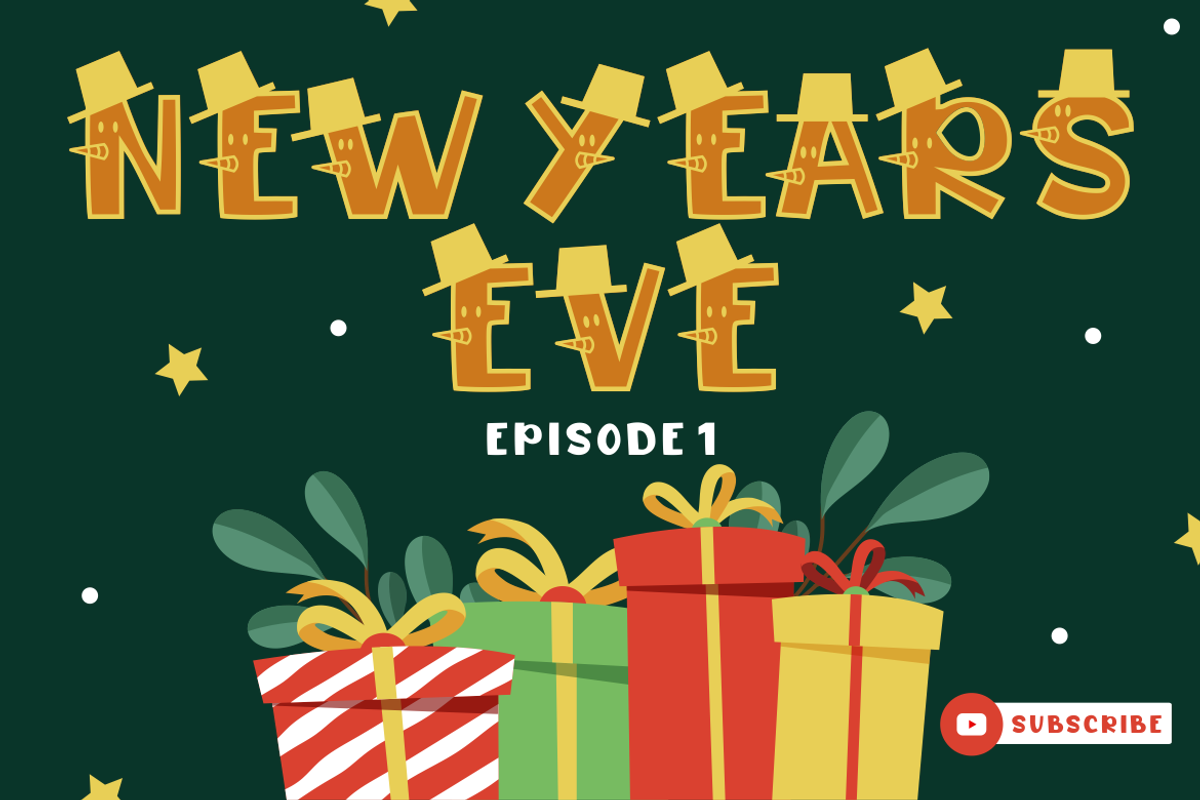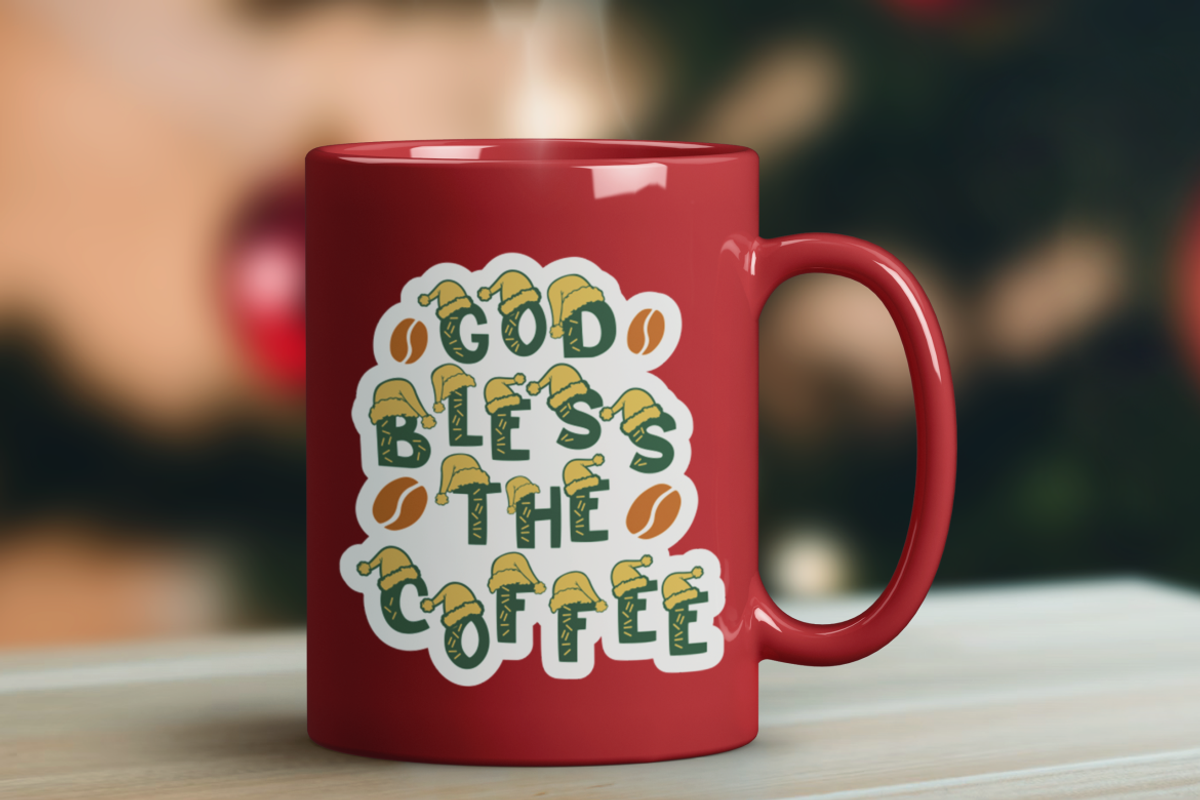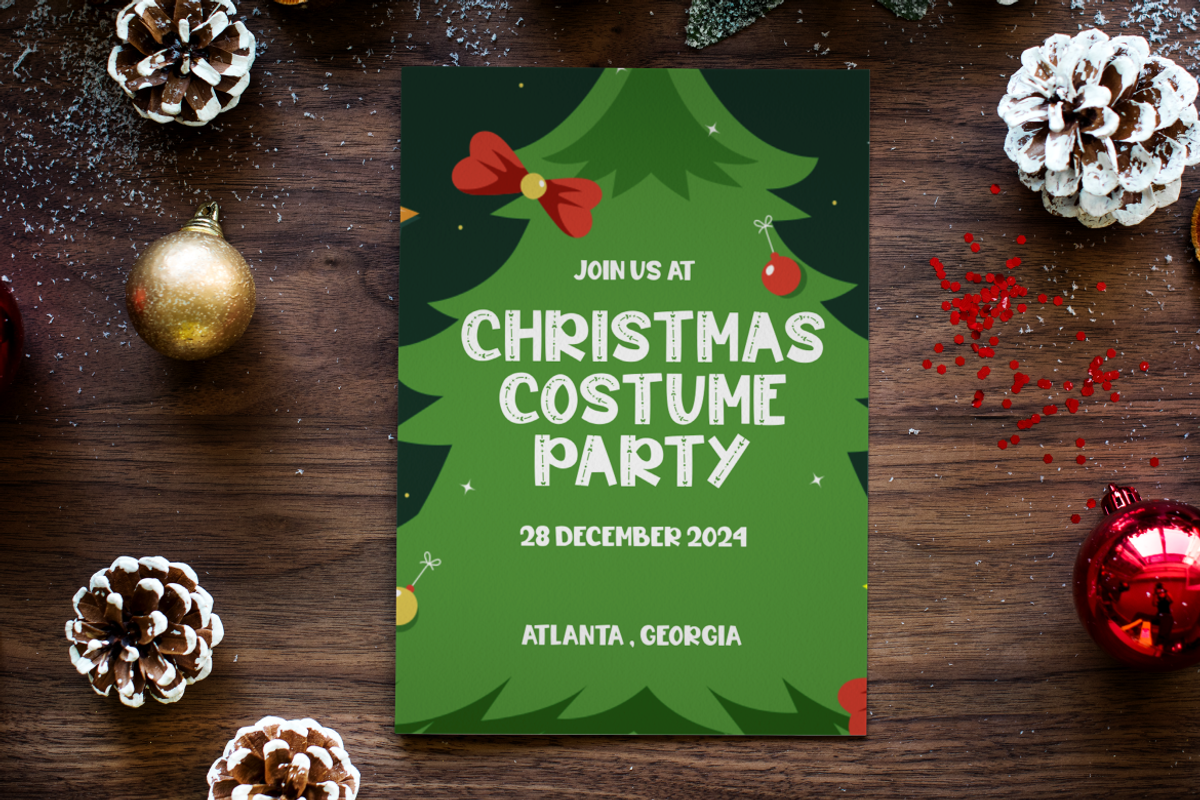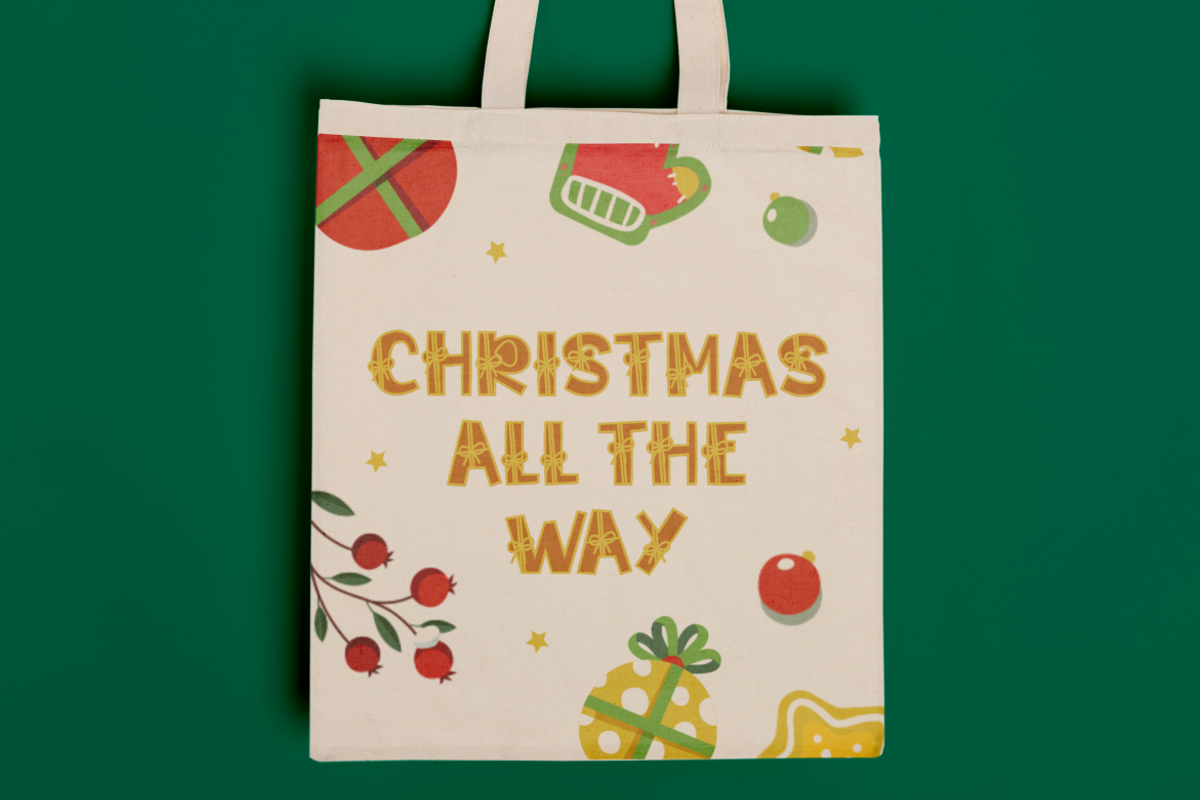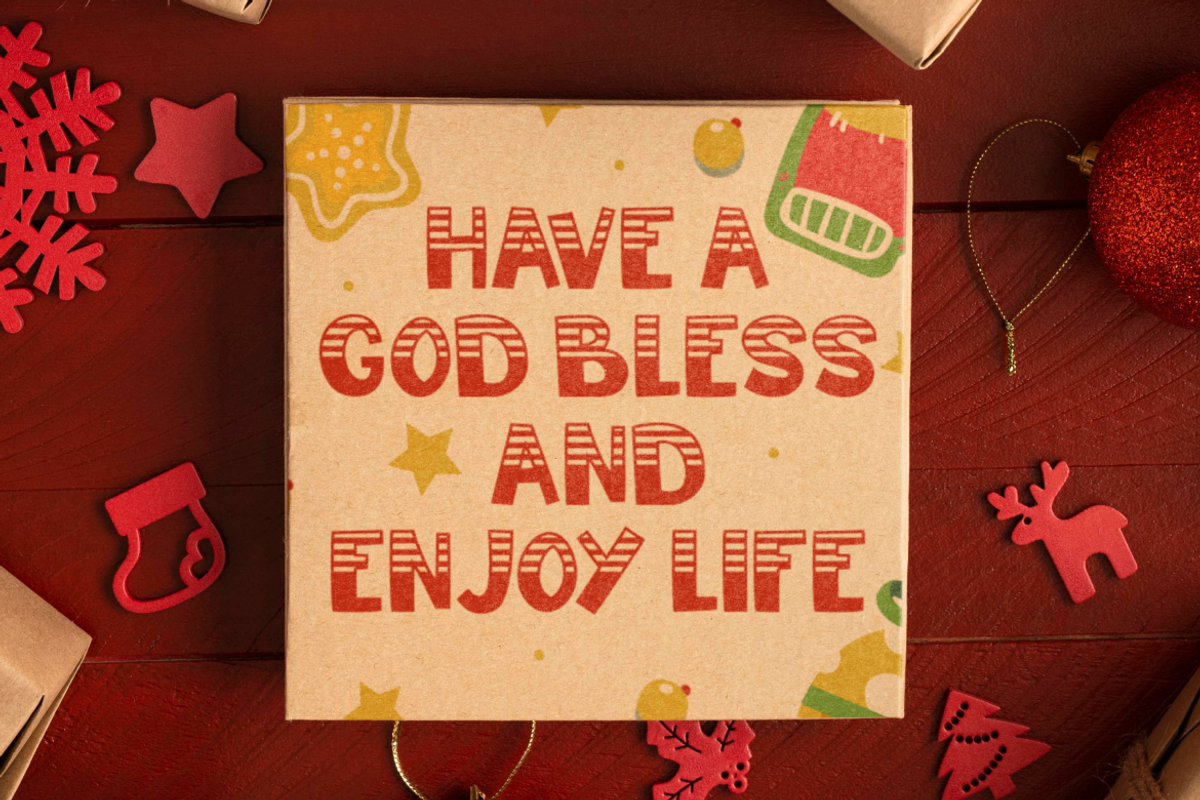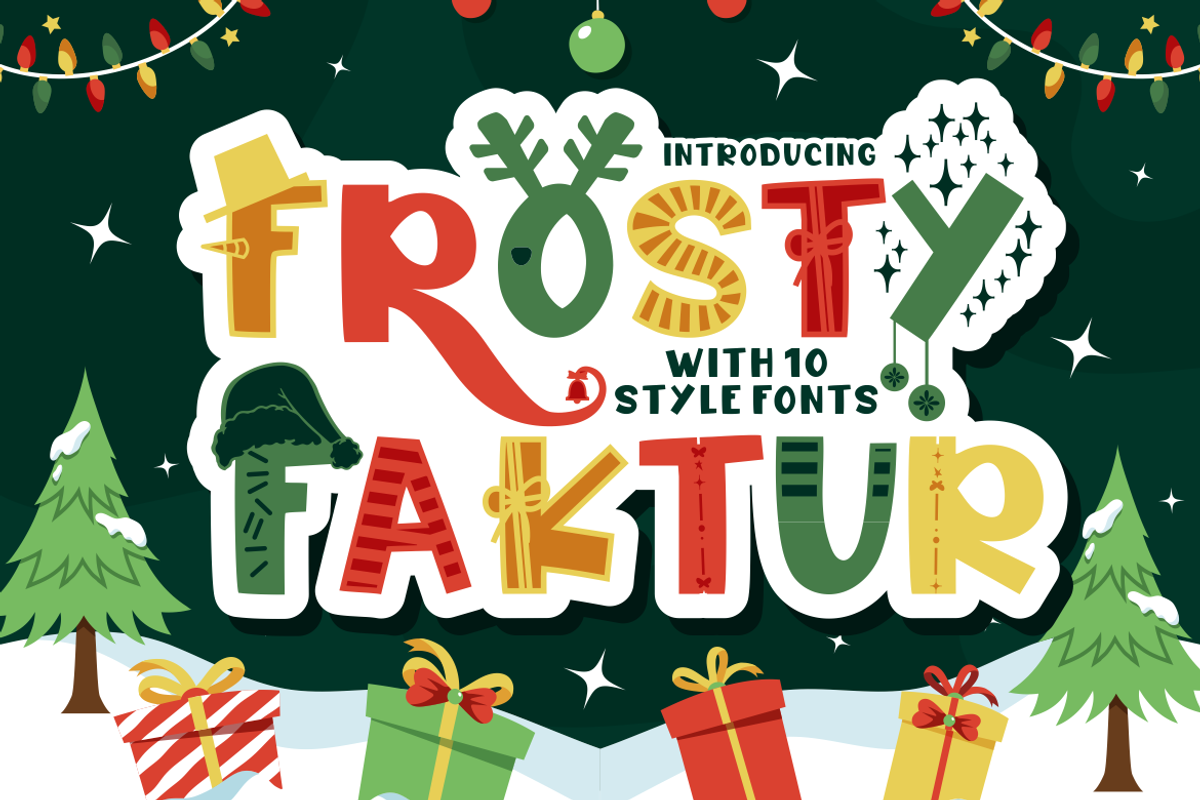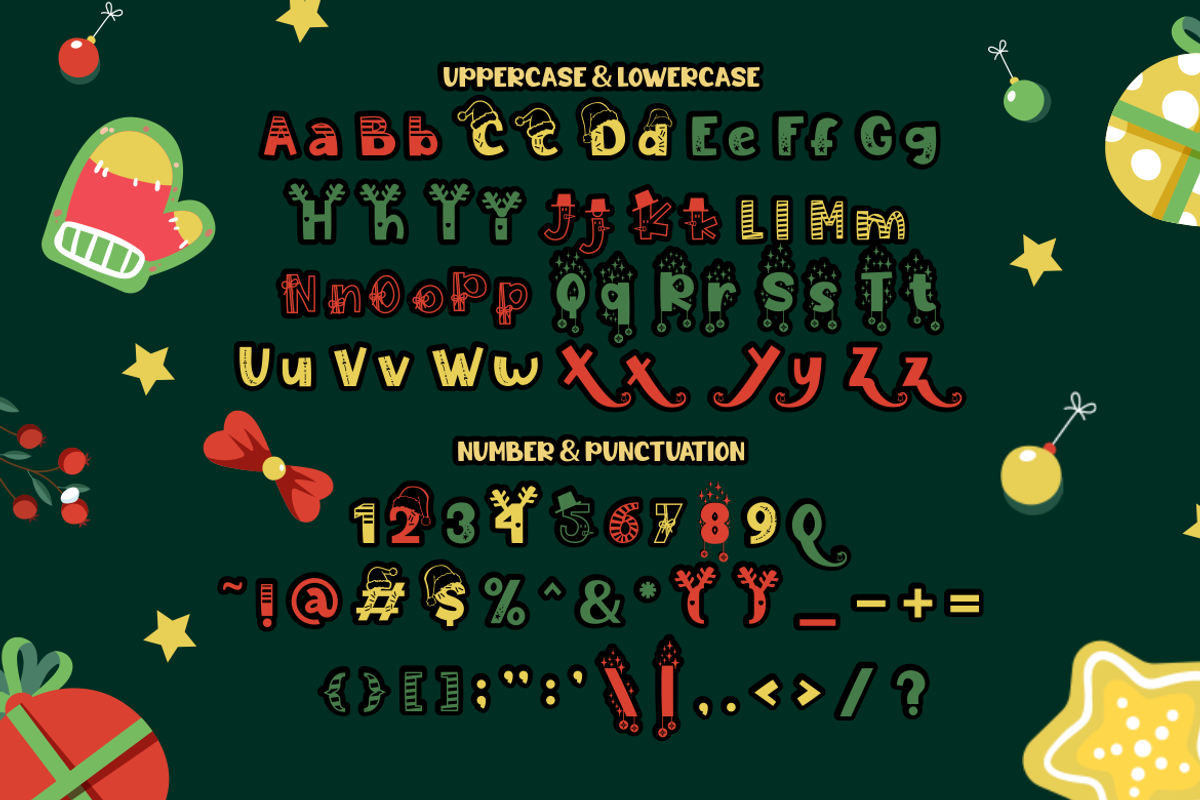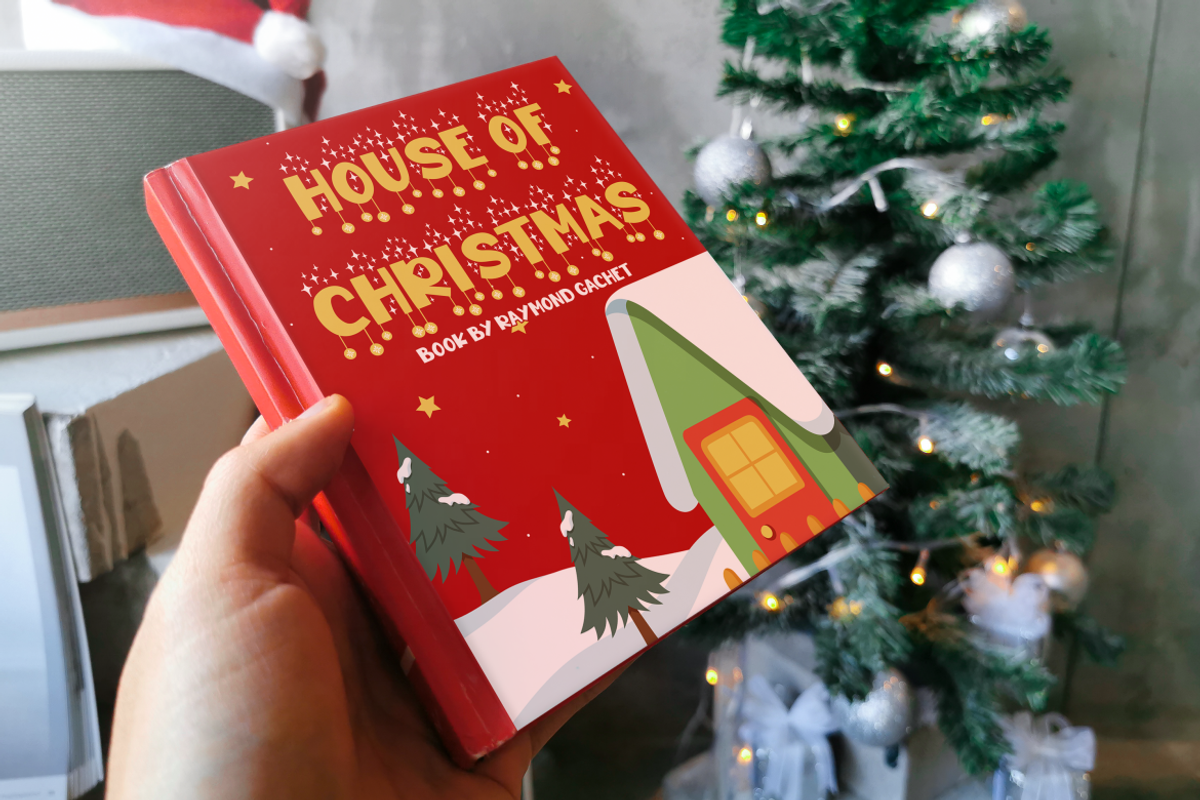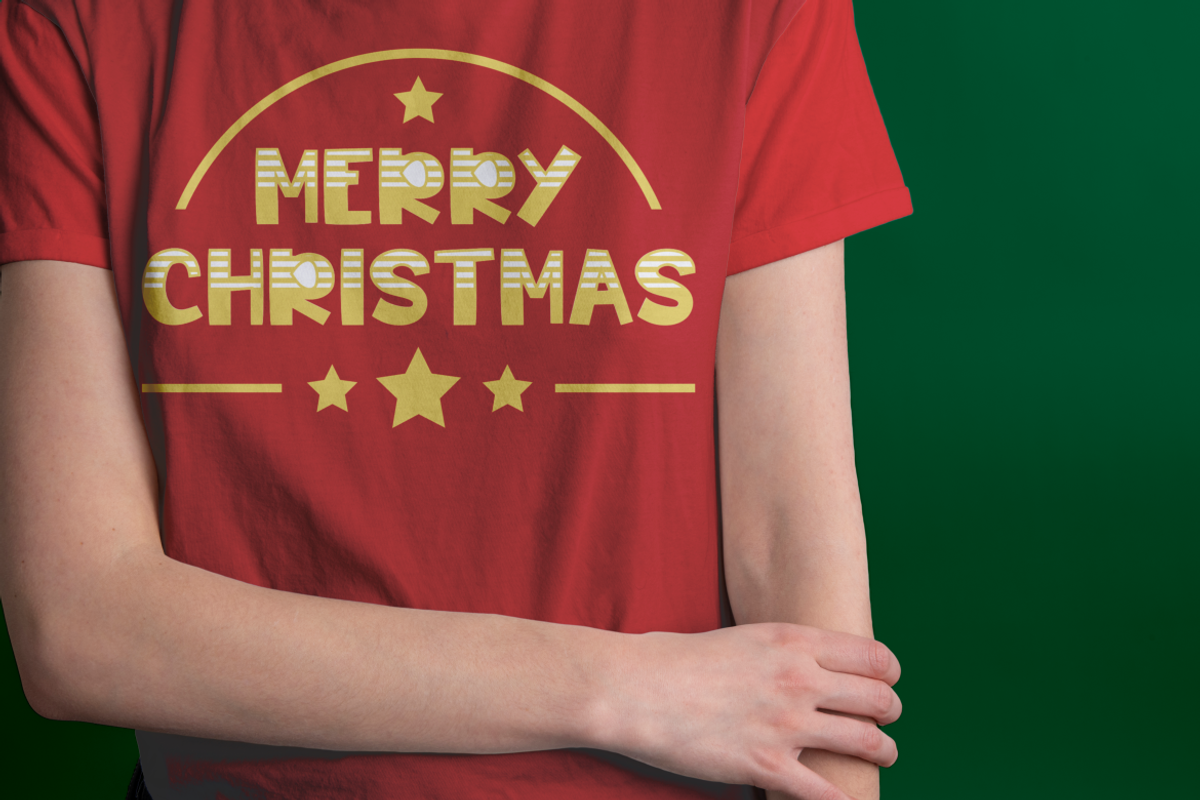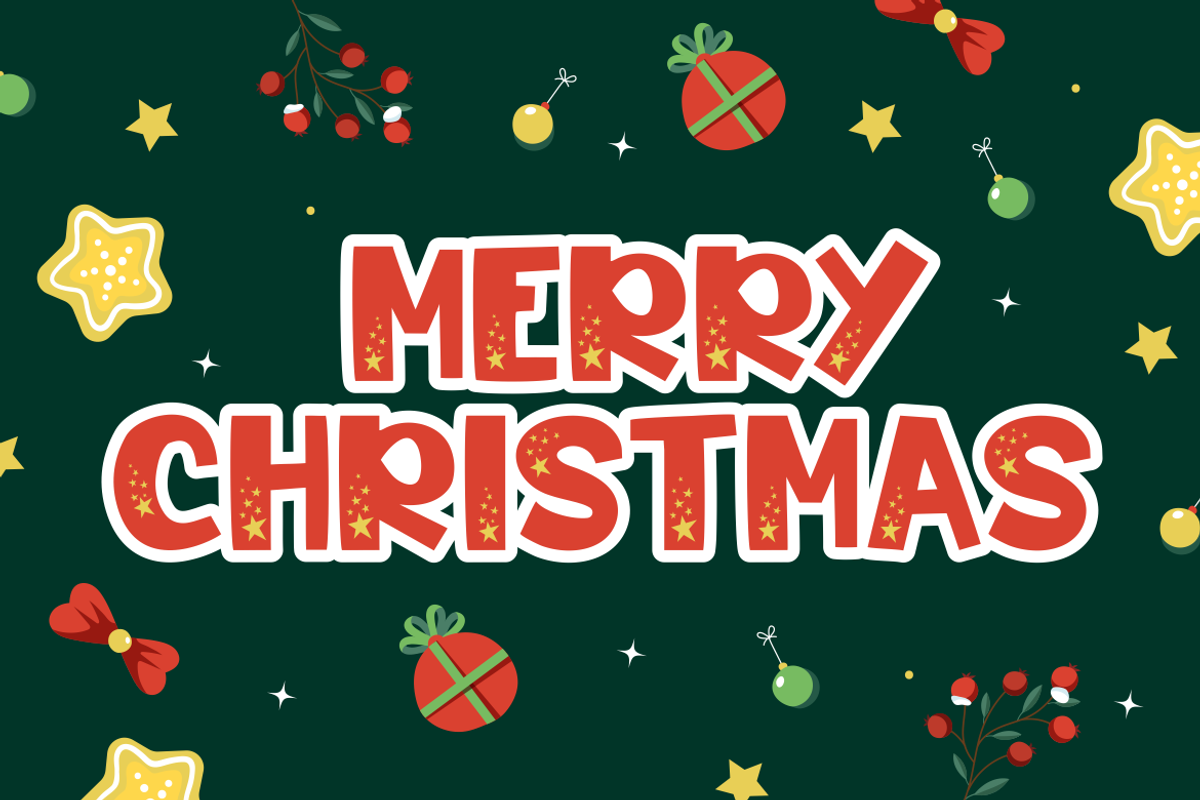
Frosty Faktur - Christmas Font
Are you looking for a font that captures the joyous spirit of Christmas? Do you want to add some festive flair to your designs? If so, you will love Frosty Faktur - Christmas Font!
Frosty Faktur is a display font that features quirky letters with intricate details, adorned with elements reminiscent of winter’s charm, from delicate snowflakes to gleaming stars. The font exudes a playful yet elegant aura, making it a versatile choice for various applications.
Frosty Faktur offers ten distinct styles, each thoughtfully designed to complement the festive season. Whether it’s the crispness of snow or the warmth of holiday gifts, every style resonates with the enchanting allure of Christmas. It seamlessly blends quirky and fun aesthetics while maintaining readability, ensuring your messages are not only captivating but also clear and concise.